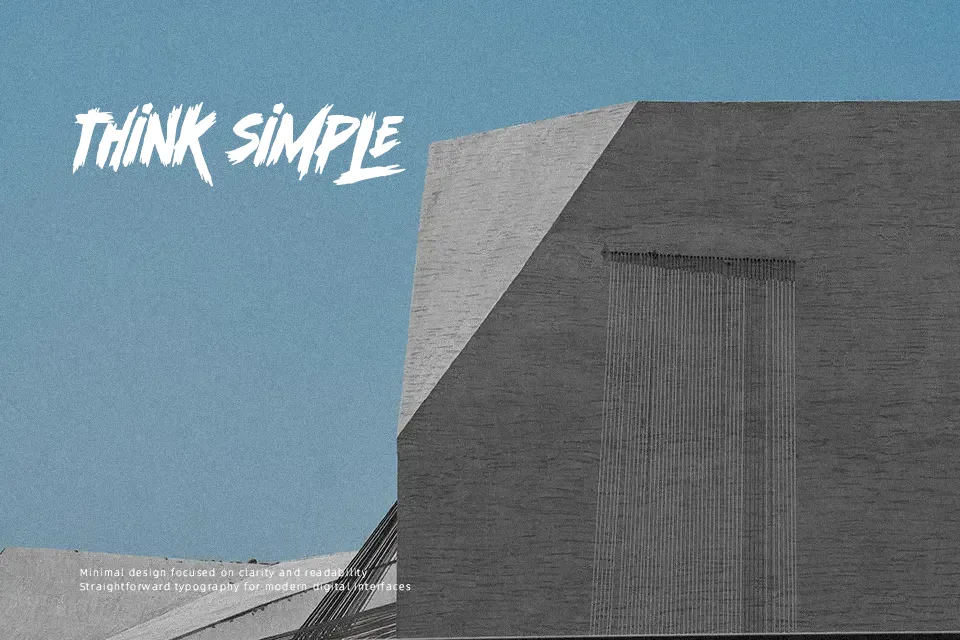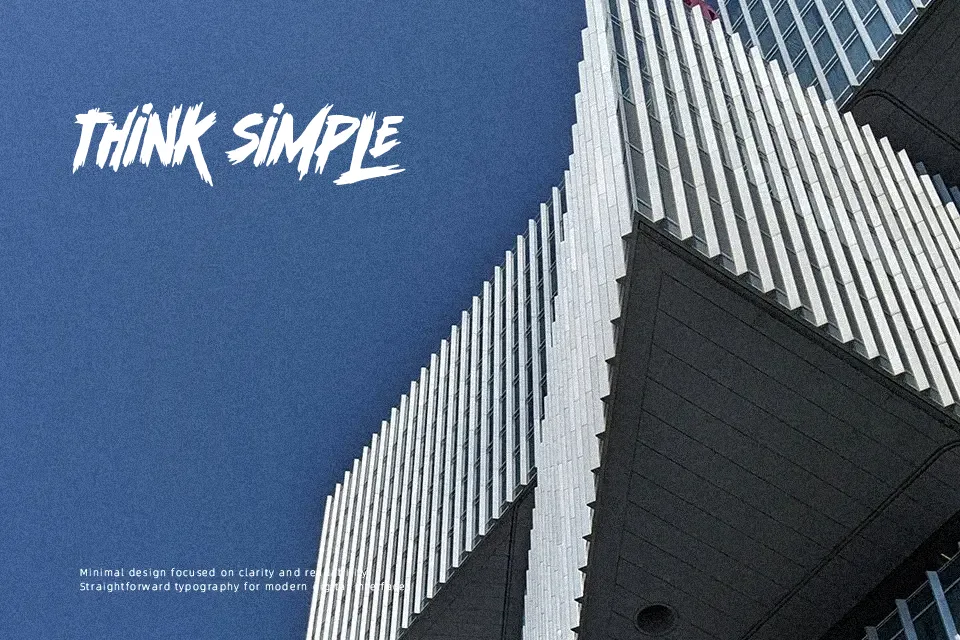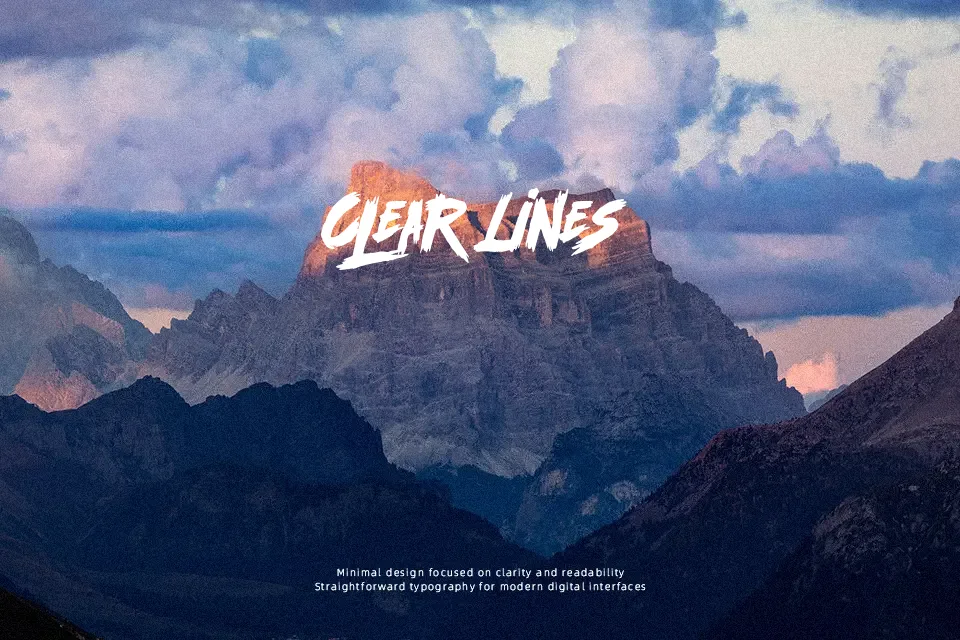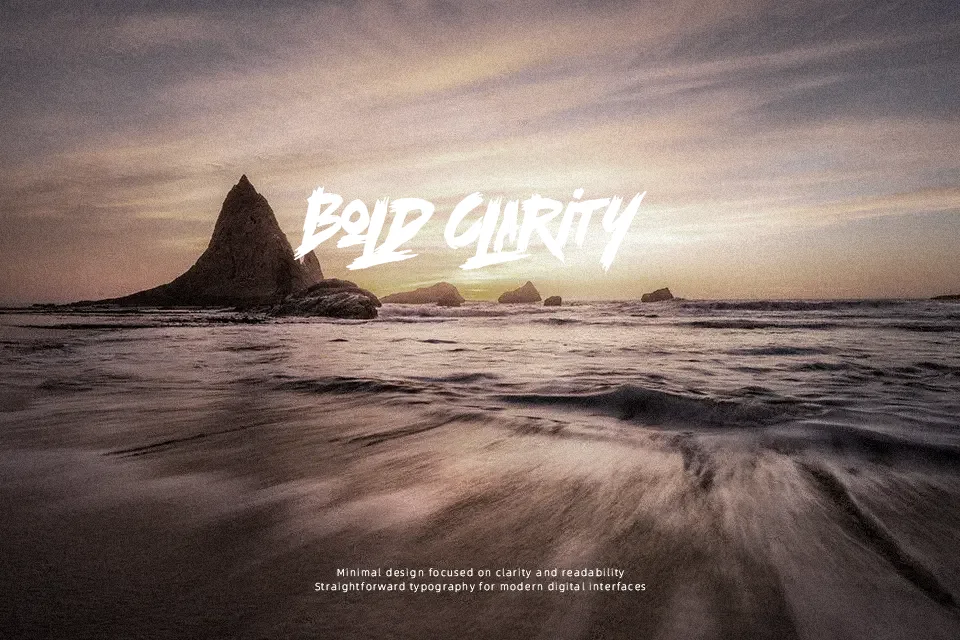
Scramble Storm Font
Scramble Storm Font is a heavy brush display typeface defined by jagged edges, dry-bristle textures, and uneven stroke weights that create an intense visceral presence. The uppercase characters show strong vertical dominance with slightly irregular baselines, giving each word a hand-painted, frantic rhythm. Tight character spacing reinforces this compact, aggressive feel, making the letterforms command attention on haunted house promotions, thriller book jackets, and streaming thumbnails. However, the heavy distressing and tight tracking significantly impair continuous reading comfort. While the bold contours ensure high impact at larger display sizes, intricate bristle details fill in and lose definition in small body text.
Best For: horror movie title cards,halloween event posters,thriller book covers,gaming stream overlays
Not Ideal For: long paragraph text,mobile user interface labels,corporate annual reports,dense editorial layouts
Perfect for film, gaming, and halloween, with a dark and brush style.